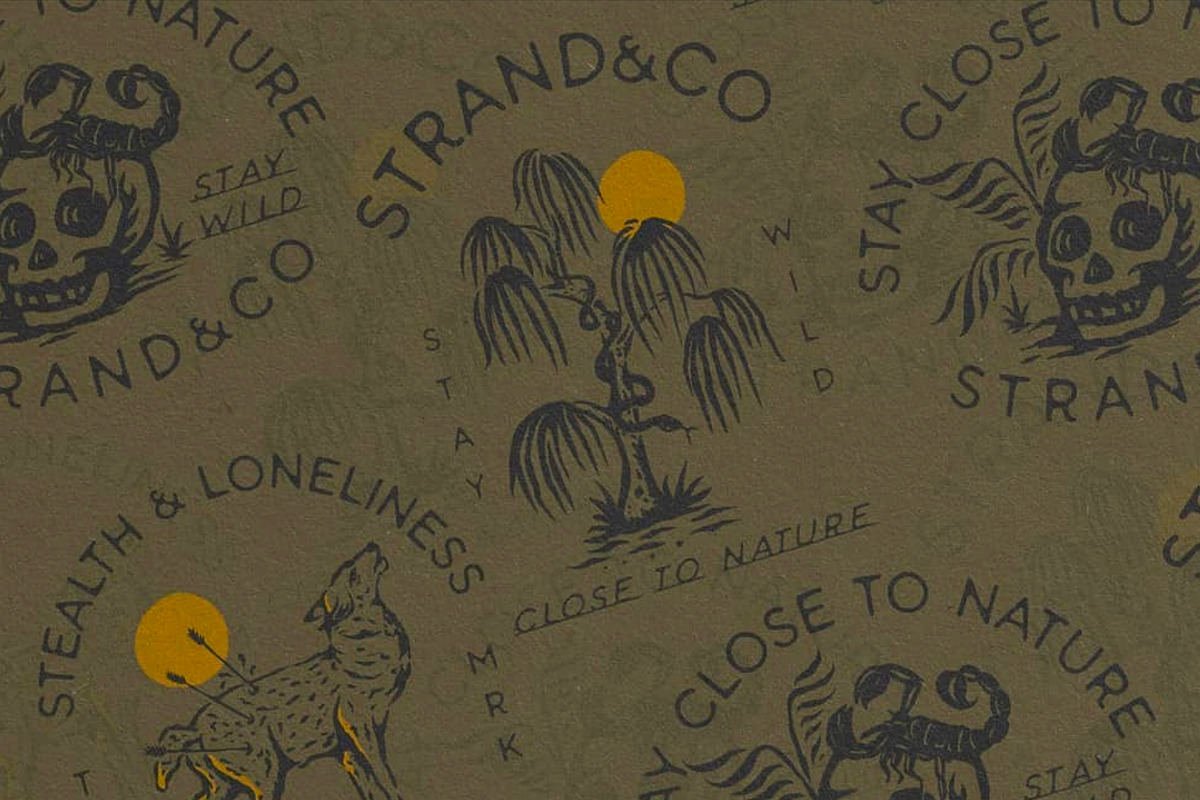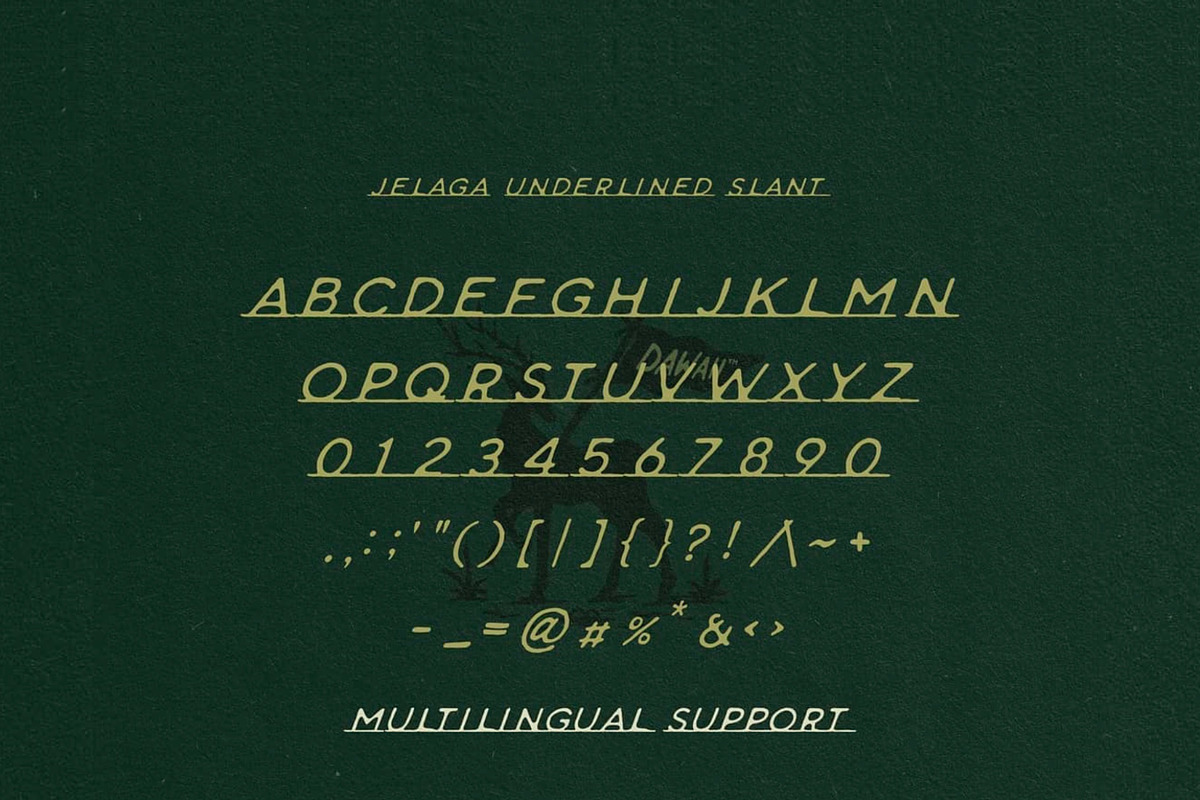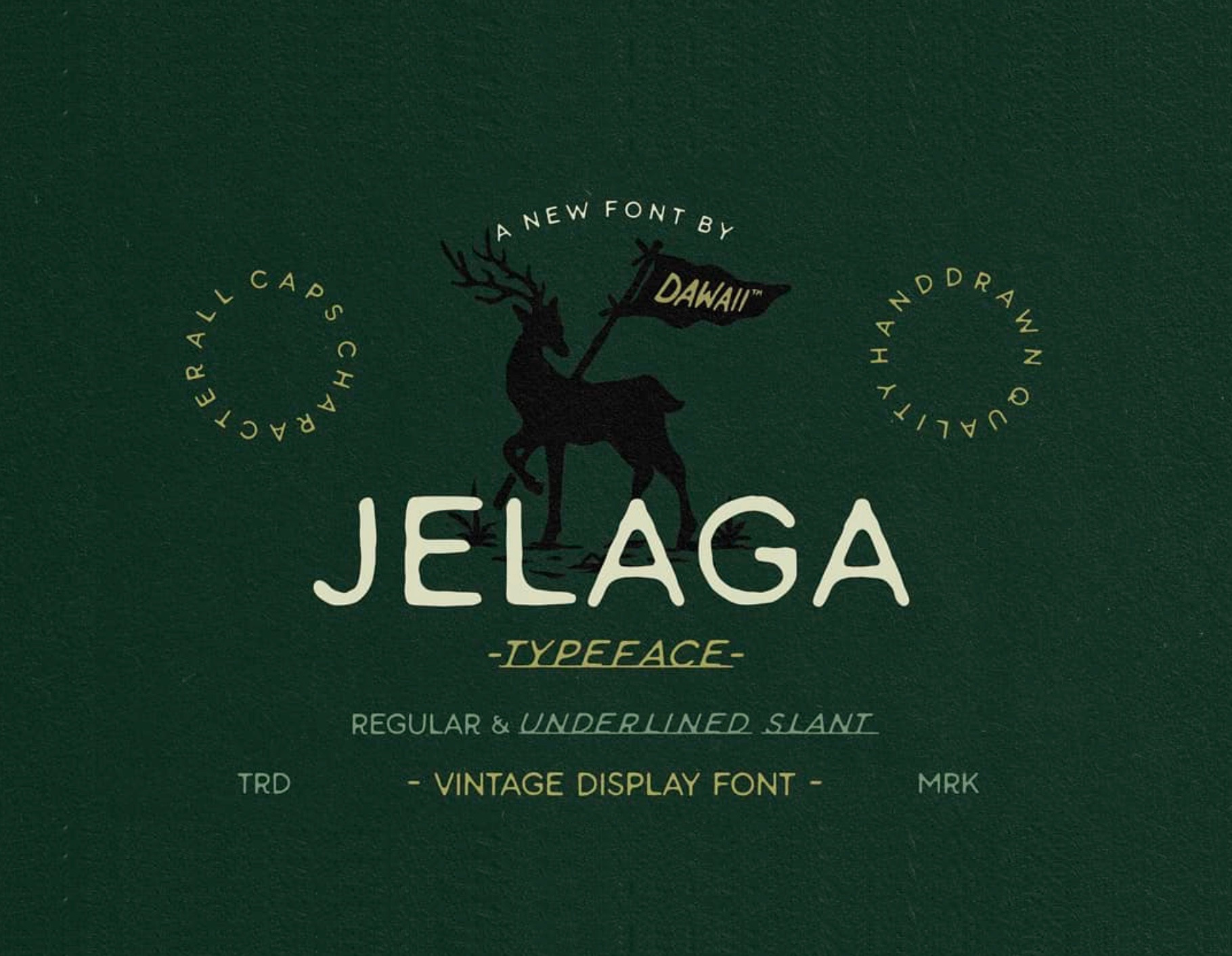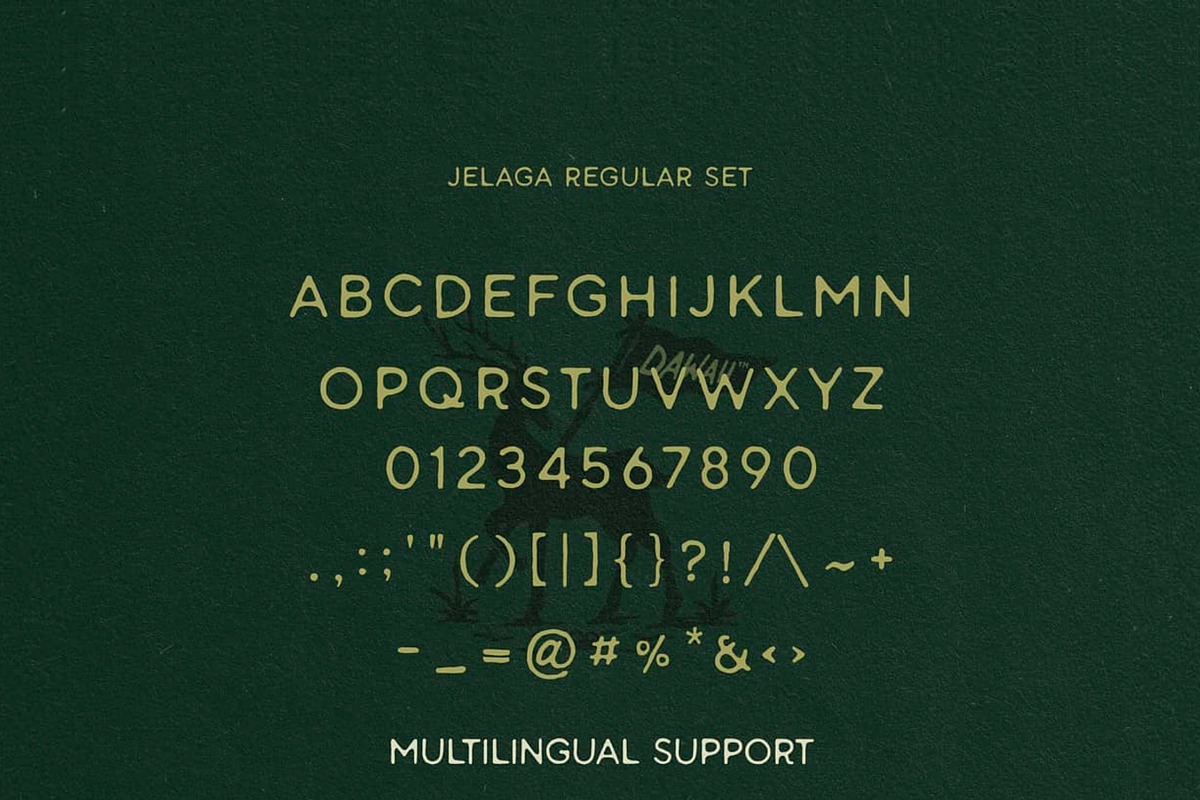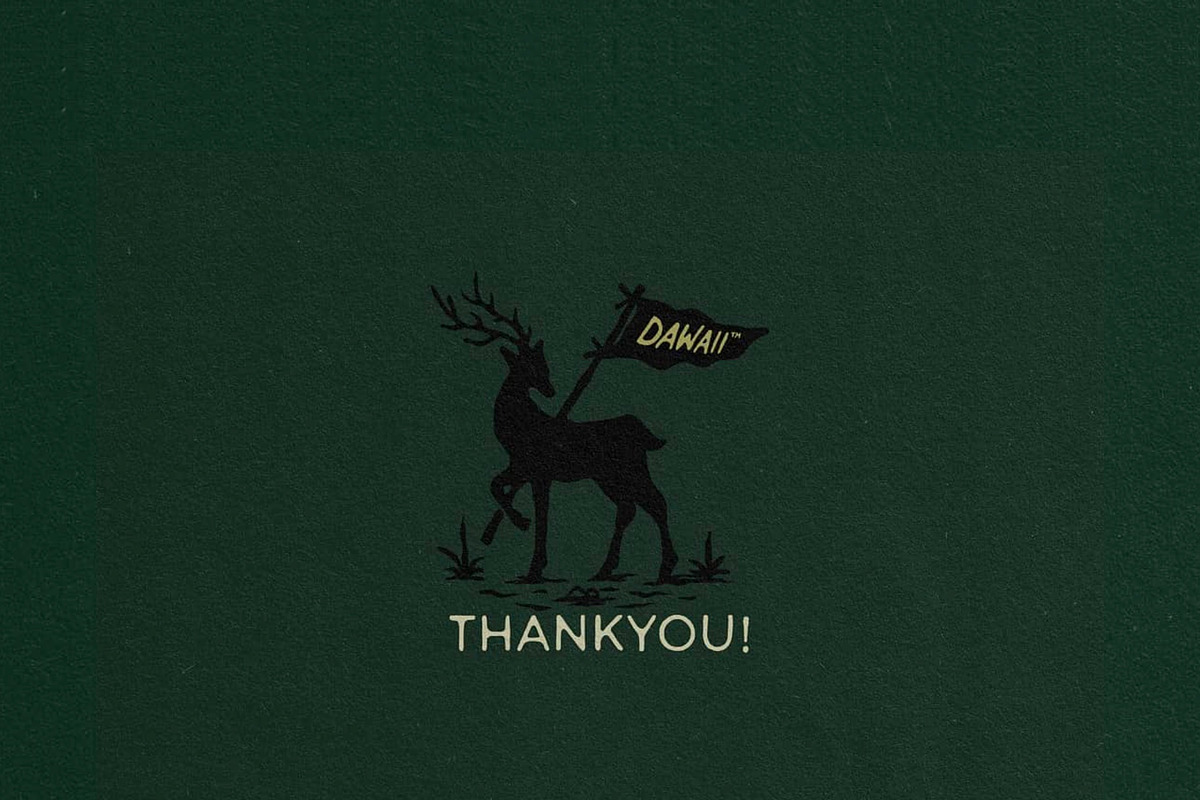
Jelaga Typeface
INTRODUCING
Jelaga Typeface made by hand drawn with gritty texture and disstresed effect. Come with 2 style different, Regular Stamp & Underlined Slant. This font suitable for your latest project, branding design, etc.